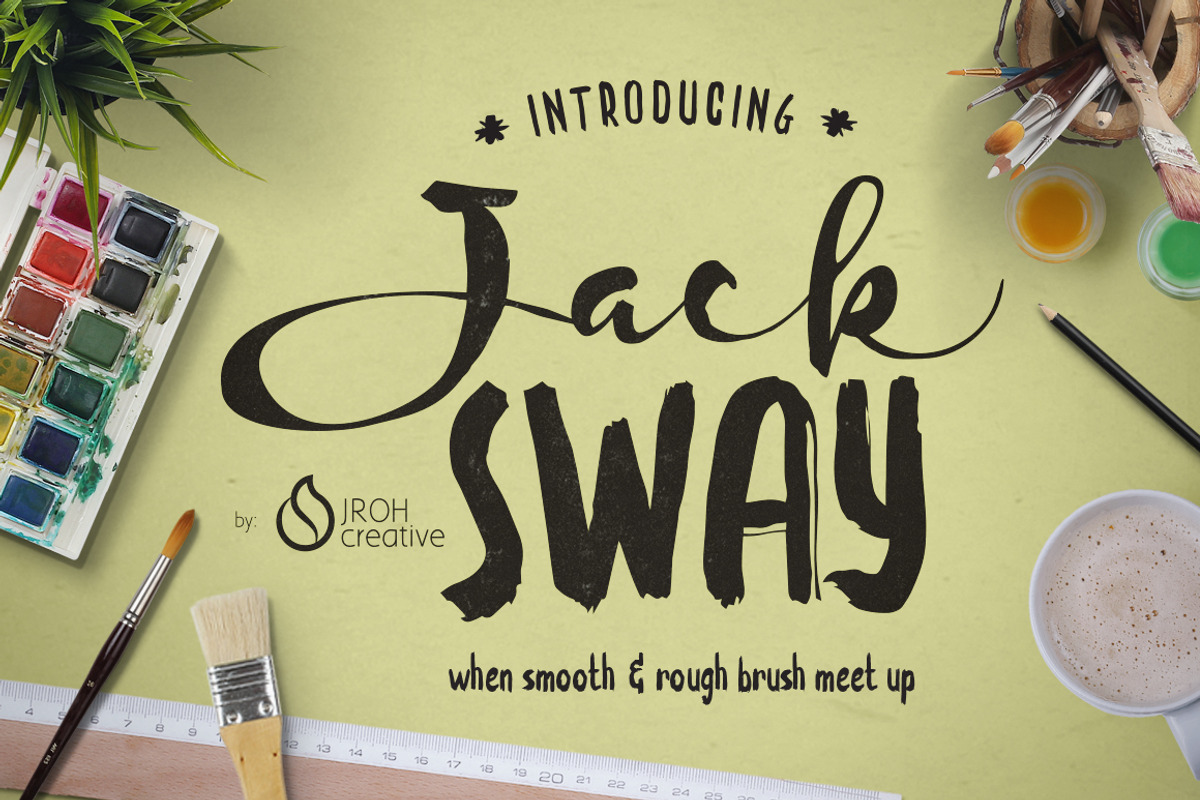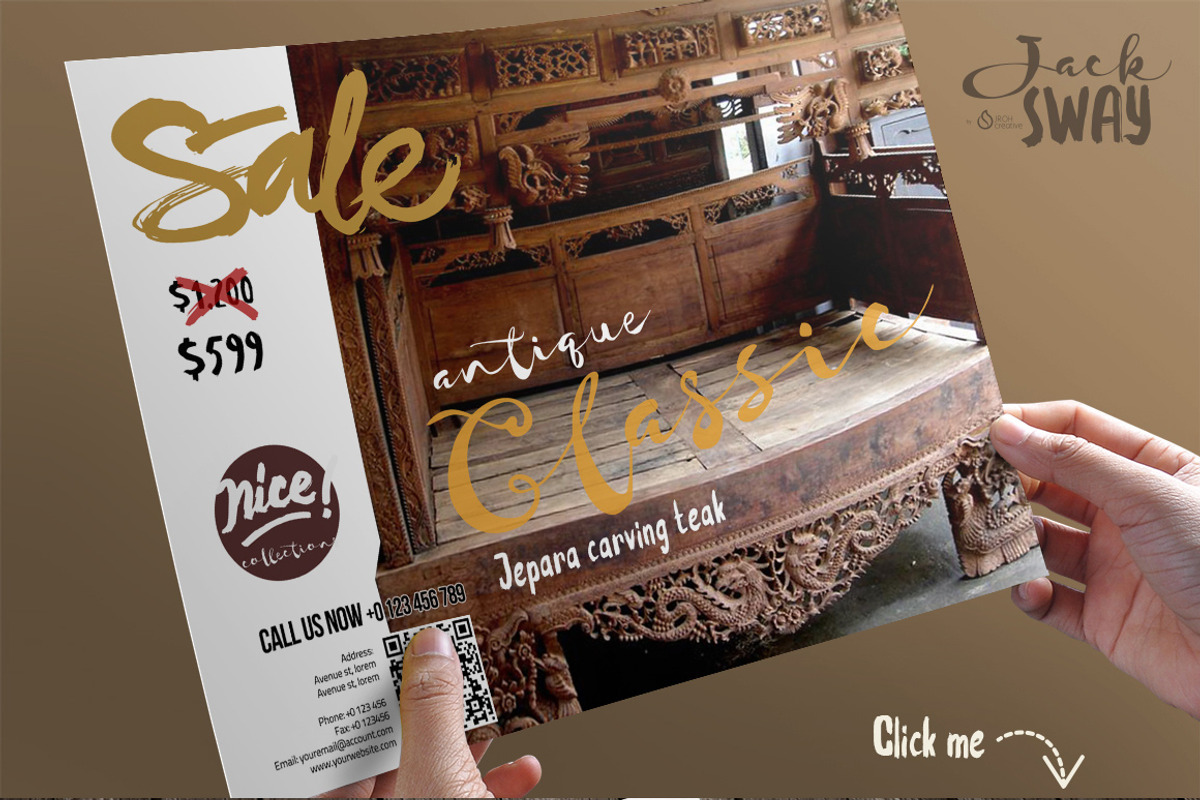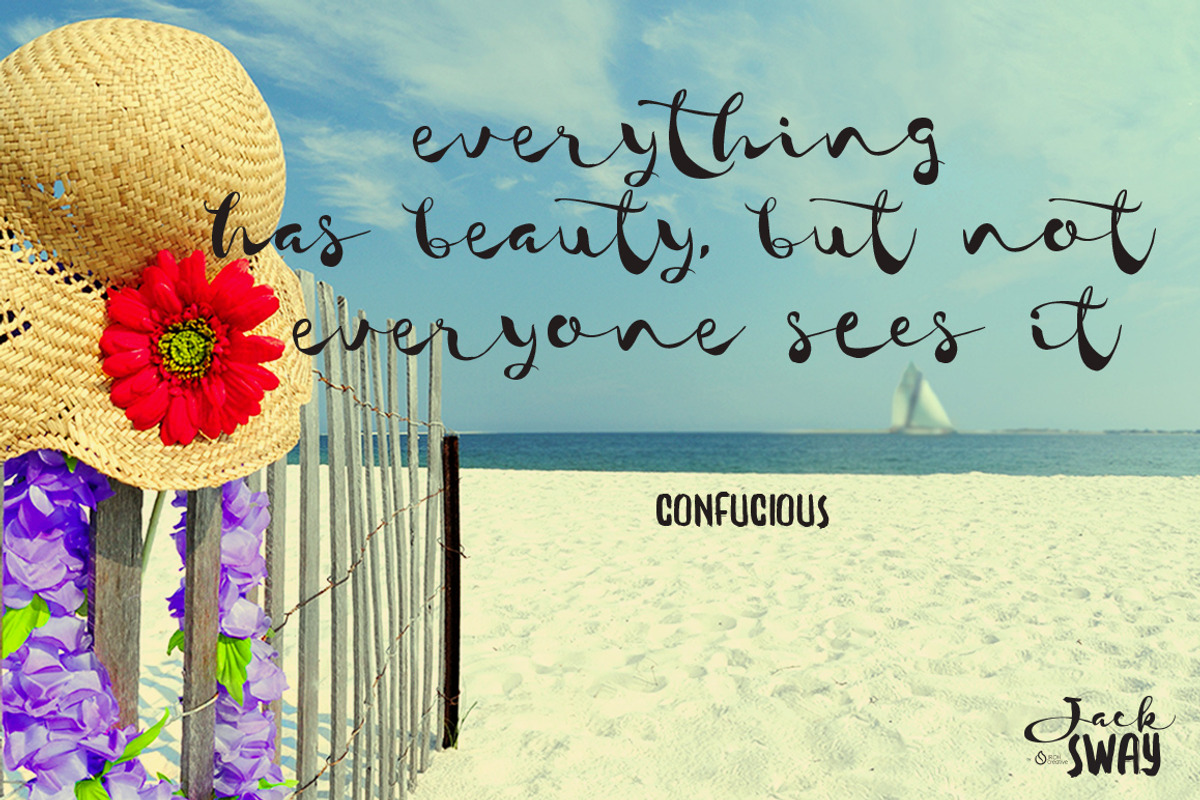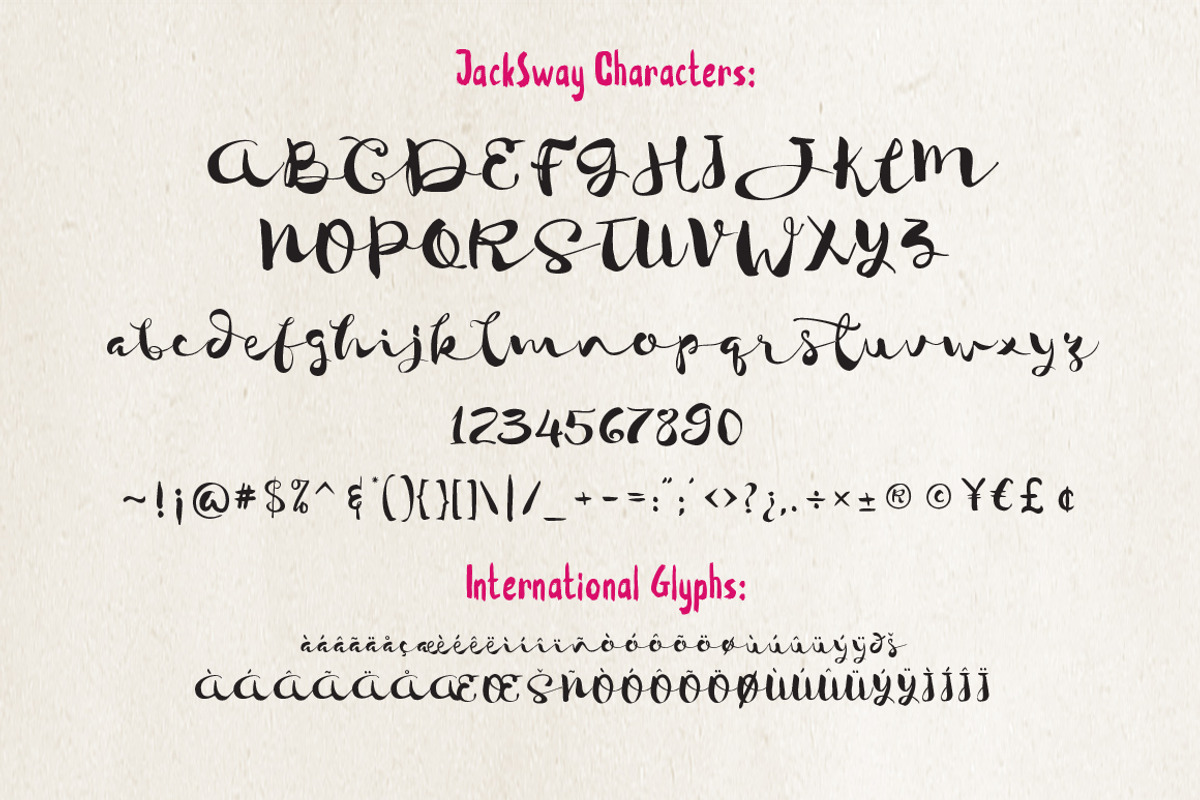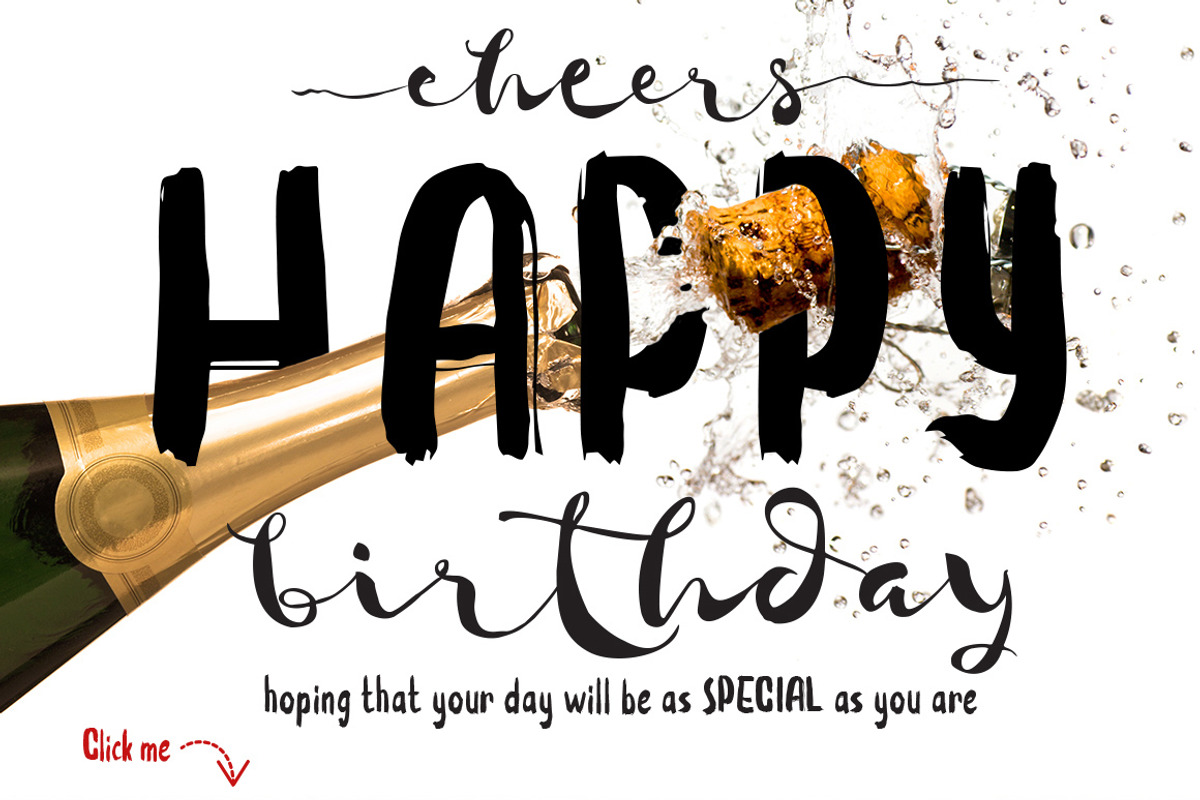
JackSway font
JackSway font by JROH Creative is a font selected for branding, posters, packaging, typography.
- The Features of this fonts is: Contextual alternates Stylistic alternates Initial & Terminal Forms Standard Ligatures Discretionary Ligature
JackSway font by JROH Creative fits naturally into Branding, posters, packaging, typography.